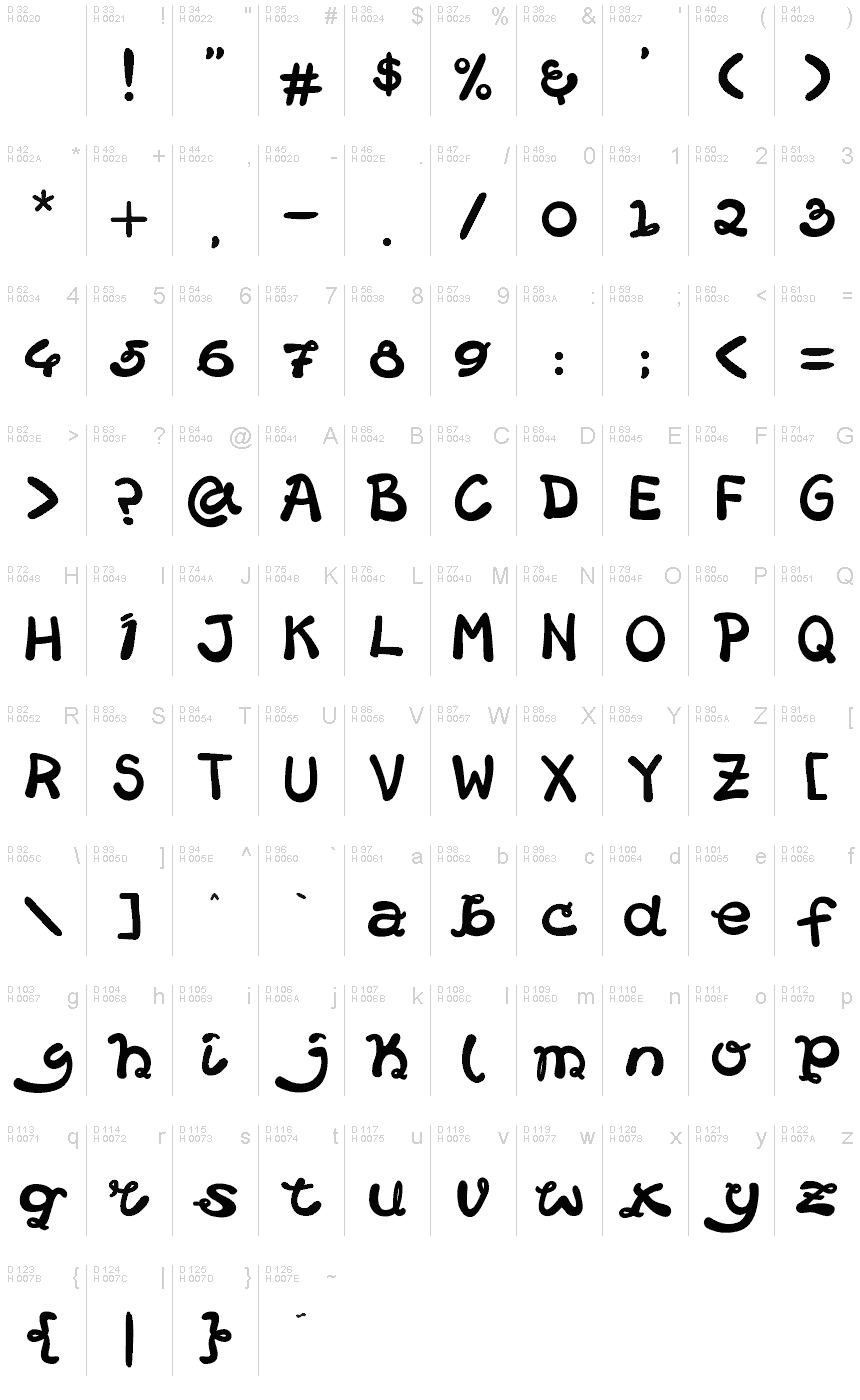
HelloCat02
This unique font still one family with " HelloCat " and still unique and cute for cat lover or pet lover. Feel free to use, keep in touch with me for any reason or ask me anything about this " HelloCat Family Fonts " on email :: awaridesign@yahoo.com :: Thank you to interest my fonts, Have a Great Day !